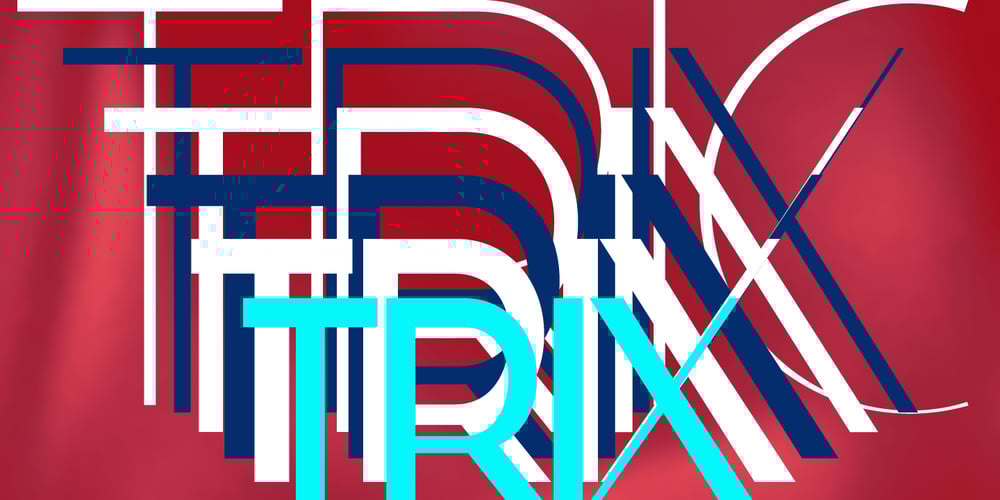
Trix
Trix font
Trix Font Family was designed by Gert Wiescher and published by Wiescher Design. Trix contains 5 styles and family package options. »Trix« was inspired by »Tric«, which was inspired by the very special shop-sign of Alex Singer, who builds the worlds most beautiful bicycles in Paris. http://www.cycles-alex-singer.fr/ »Tric« was already absolutely turn of the century, 1920s Paris of Liza Minellis Cabaret. But now I give you the sister font »Trix«, which is absolutely, ultimately the most 1920s turn of the century font. Enjoy »Trix«, the second outstanding font!